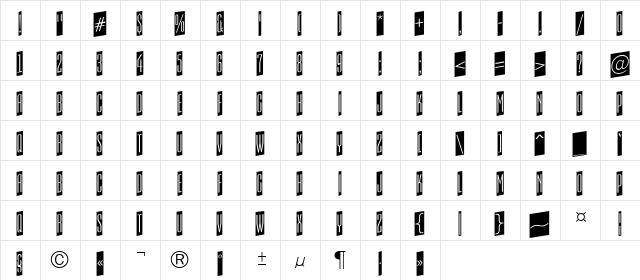
a_EmpirialCmUp Regular
Design Context for a_EmpirialCmUp Typeface
a_EmpirialCmUp offers clean, dependable letterforms without strong stylistic allegiance, making it a practical choice for designers who need flexibility.